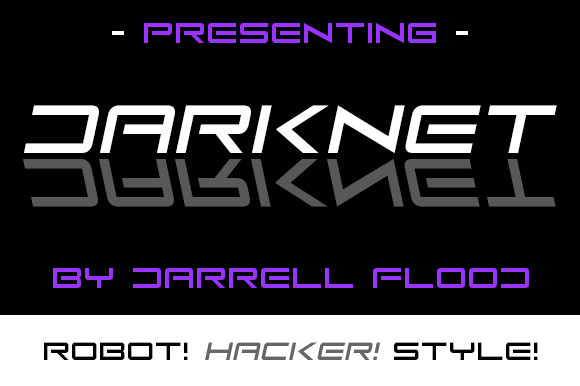
The Quest for the Perfect Sci-Fi Font: Enter Darknet
I still remember the design project that led me to discover the Darknet Font. I was working on a futuristic sci-fi poster, and I was struggling to find the perfect font to capture the essence of a high-tech, otherworldly feel. My client wanted something sleek, modern, and attention-grabbing. After hours of scouring font libraries and marketplaces, I stumbled upon Darknet – a futuristic, streamlined display font that instantly resonated with my vision.
First Impressions: A Love Affair with Darknet
As soon as I started experimenting with Darknet, I knew I had found the perfect fit for my project. Here’s what I love about this font:
- ✨ Modern and sleek design: Darknet’s clean lines and minimalist aesthetic make it perfect for sci-fi and tech-related projects.
- ✅ Highly legible: Even at small sizes, Darknet remains clear and easy to read, making it versatile for various applications.
- 💻 Support for OpenType features: Darknet comes with a range of OpenType features, including stylistic alternates and glyphs, which allow for creative experimentation.
A Few Quirks to Consider
While Darknet has won me over, it’s not without its limitations:
- 🤔 Limited suitability for body text: Darknet is primarily designed for display purposes, so it may not be the best choice for lengthy paragraphs or body text.
- ⚠️ No built-in italics: If you need italic variations, you might need to rely on alternative fonts or creative workarounds.
The Story Behind Darknet: Designer Inspiration
While the true story behind Darknet’s creation may be shrouded in mystery, it’s easy to imagine that the designer was inspired by the futuristic landscapes of sci-fi movies and the cutting-edge tech of modern innovation. Perhaps they aimed to distill the essence of high-tech design into a clean, modern font that’s both functional and visually striking.
| Font Name | Darknet Font |
| Author | Dadiomouse |
| What type of projects is Darknet best suited for? | Darknet excels in sci-fi, tech, and futuristic-themed projects, such as posters, presentations, and digital interfaces. |
| Is Darknet suitable for body text? | While Darknet is primarily designed for display purposes, it can be used for short paragraphs or captions, but may not be ideal for lengthy body text. |